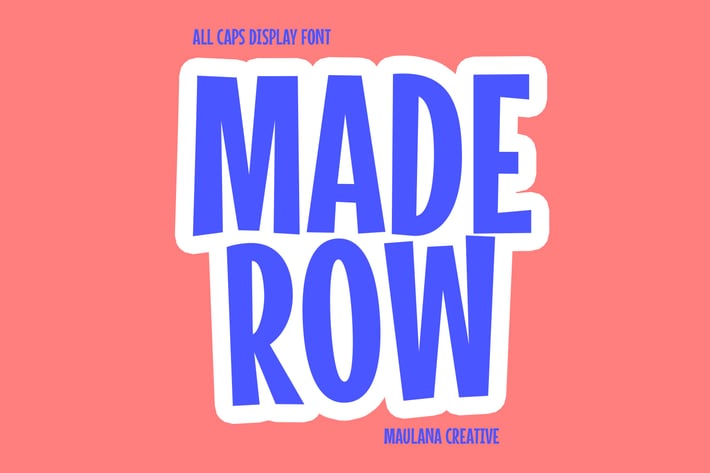
Maderow Display Font
Maderow is an All Caps Bouncy Sans Display font. Bold stroke, fun character with a bit of ligatures and alternates. To give you an extra creative work. Maderow font support multilingual more than 100+ language. This font is good for logo design, Social media, Movie Titles, Books Titles, a short text even a long text letter and good for your secondary text font with script or serif. Make a stunning work with Maderow font.